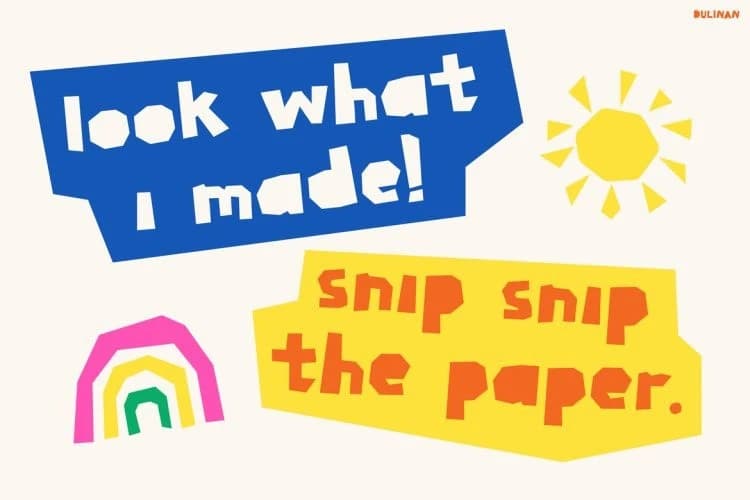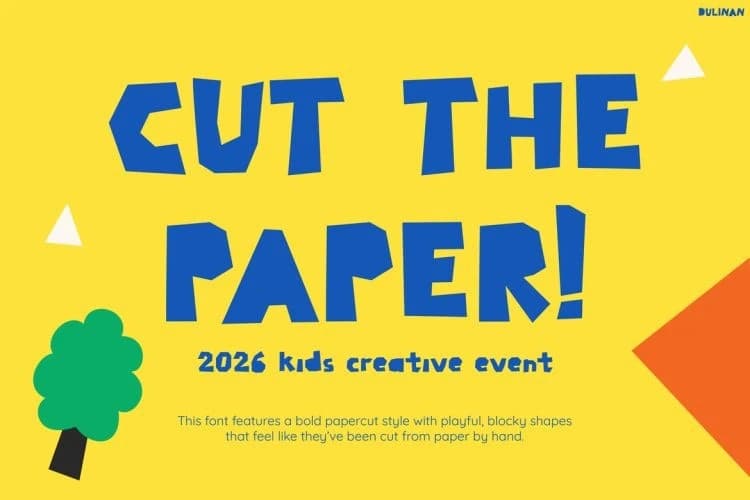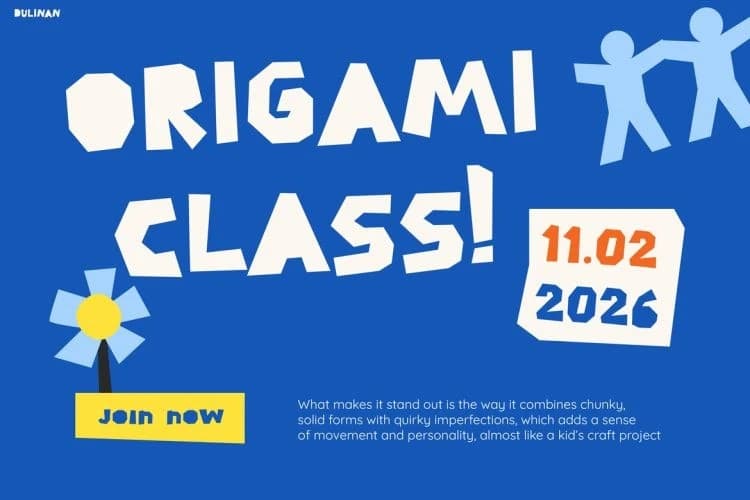
Dulinan Display Font
Dulinan Display Font is a cheerful, hand-drawn display typeface that instantly brings fun, creativity, and warmth into any design. Not only does it feature irregular, bouncy letterforms, but it also creates a lively visual rhythm that feels natural and expressive.